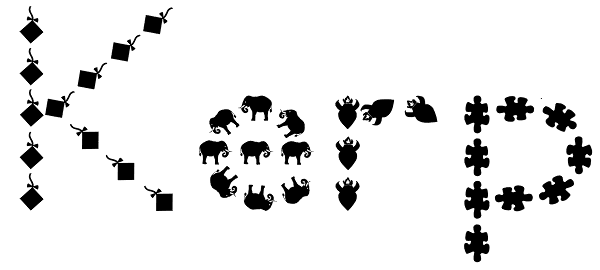
Kerp
Kerp introduces the new trend in handwriting practice for kids in preK-Kindergarten. It's fun, unique and visually stimulating that will encourage any young "alphabet tracers" to find joy while learning their ABCs. This TrueType font is great for...